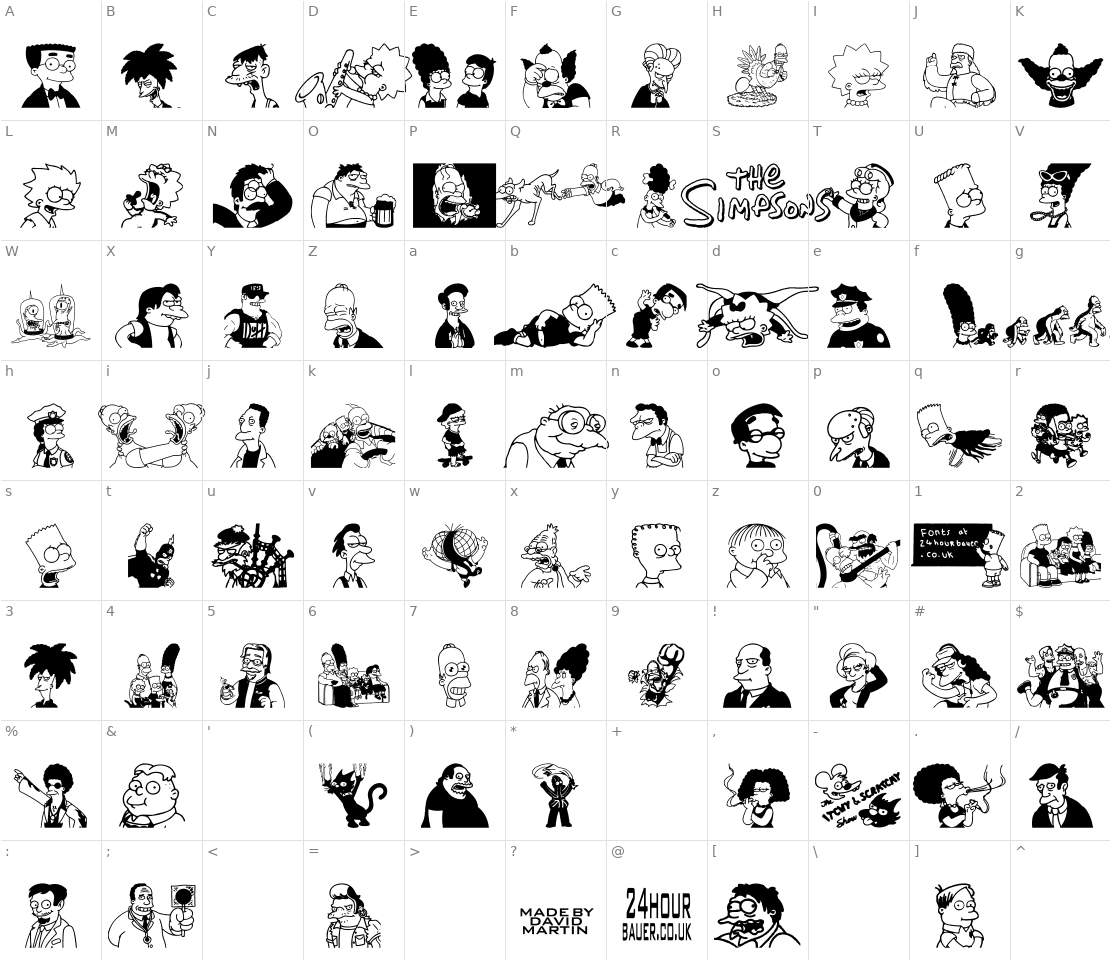
Simpsons Mmmm...Font
Simpsons Mmmm...Font is a novelty character font featuring icons and figures from the long-running animated TV series, replacing standard letterforms with illustrations of characters and objects from the show. It's strictly decorative, useful for fan projects, party invitations, or themed graphics where you want instantly recognizable Springfield imagery rather than readable text.